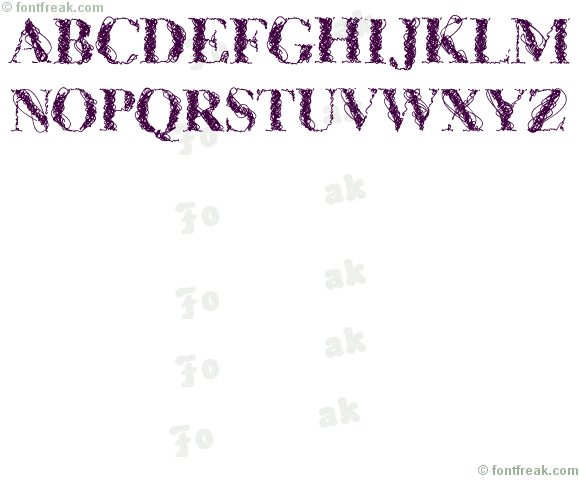
CF WireFrame Demo Regular
About CF WireFrame Demo Regular
CF WireFrame Demo Regular is a striking display font that embodies a unique blend of modernity and artistry, making it a standout choice for various design projects. As a decorative font, it showcases an intriguing style with a raw, unfinished look that captures attention. The visual characteristics include a distinctive stroke weight that varies throughout the characters, giving it a handcrafted feel. The spacing is thoughtfully designed to maintain readability while enhancing its artistic flair. This font features subtle decorative elements that evoke a sense of texture and depth, adding an extra layer of interest to any design.
This font is ideal for a range of creative applications. It can be used effectively in wedding invitations, where its artistic style can elevate the overall aesthetic. Additionally, it works well for movie posters, allowing designers to create an eye-catching title that reflects the film's theme. Restaurant menus can also benefit from CF WireFrame Demo Regular, as it brings a rustic charm that can appeal to diners looking for a unique dining experience. Graphic designers and content creators will find this font a valuable asset for branding projects, where a distinctive look can set a business apart from competitors.
The target audience for CF WireFrame Demo Regular includes graphic designers seeking to add an artistic touch to their work, small business owners looking for a memorable brand identity, and content creators who want to stand out in a crowded digital space. The CF WireFrame Demo Regular font free download offers an accessible way to incorporate this unique typeface into your creative toolkit. Its combination of style and versatility makes it an excellent choice for anyone looking to make a bold statement in their designs.